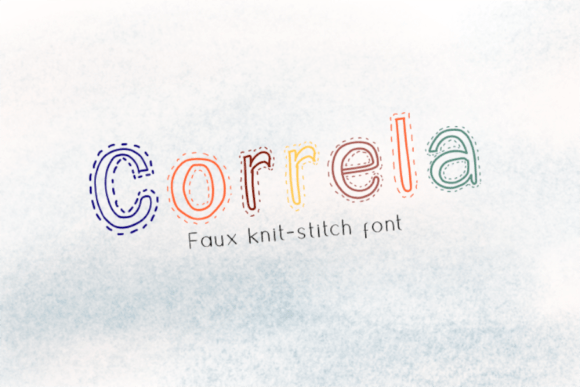
Unleash the sun-kissed charm and beachy vibes into your designs with Correla Font, a breathtaking display font crafted by Syukursetiyadi. This captivating font family transports you to the sandy shores and swaying palms, evoking the essence of coastal living.
Correla's unique faux-embroidery stitch design dances across your screen, exuding a playful energy that's perfect for beach logos, summer branding, and any project craving a touch of seaside magic. Its bold yet simple strokes create a visual symphony, capturing the carefree spirit of endless summer days.
With Correla, your words take on a life of their own, dancing and swirling like sunbeams reflecting off the ocean's surface. Create logos that radiate warmth and invite customers to dive into your brand's story. Design packaging that transports them to a tropical paradise, evoking memories of sandy toes and salty kisses.
Correla's versatility extends beyond the beach theme. Its playful nature lends itself to a myriad of design possibilities. Whether you're crafting invitations for a beachside wedding, creating posters for summer festivals, or designing social media graphics that scream "vacation mode," Correla is your trusty companion.
This stunning display font adds an instant touch of whimsy and charm to your projects. It's the perfect choice for designers seeking a font that speaks to the joys of summer, the beauty of simplicity, and the boundless creativity that lies within.
Dive into the world of Correla Font today and let your designs bask in the sun-drenched glory of the beach. Its bold strokes and bouncy movement will leave a lasting impression on your audience, making your brand the talk of the town.